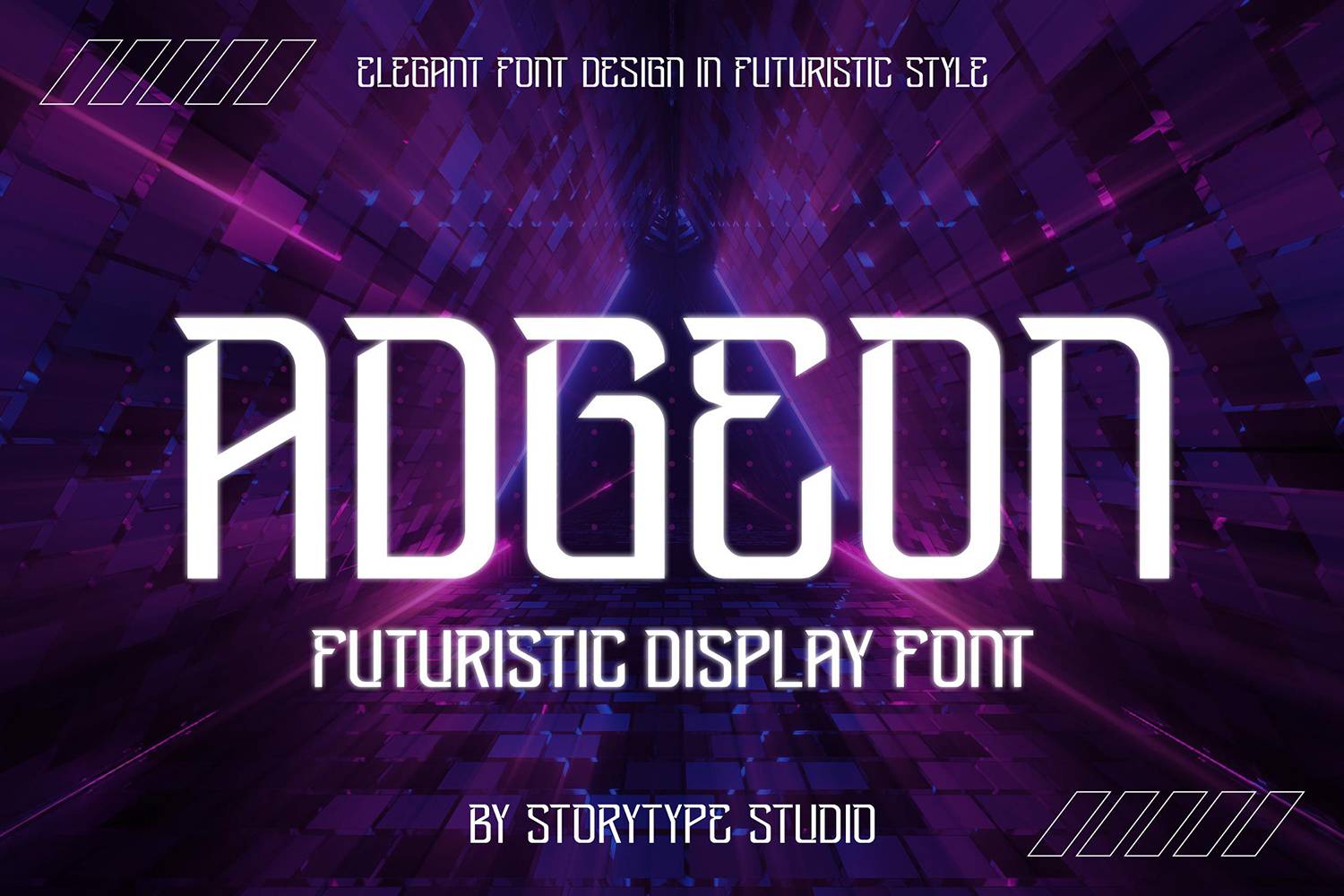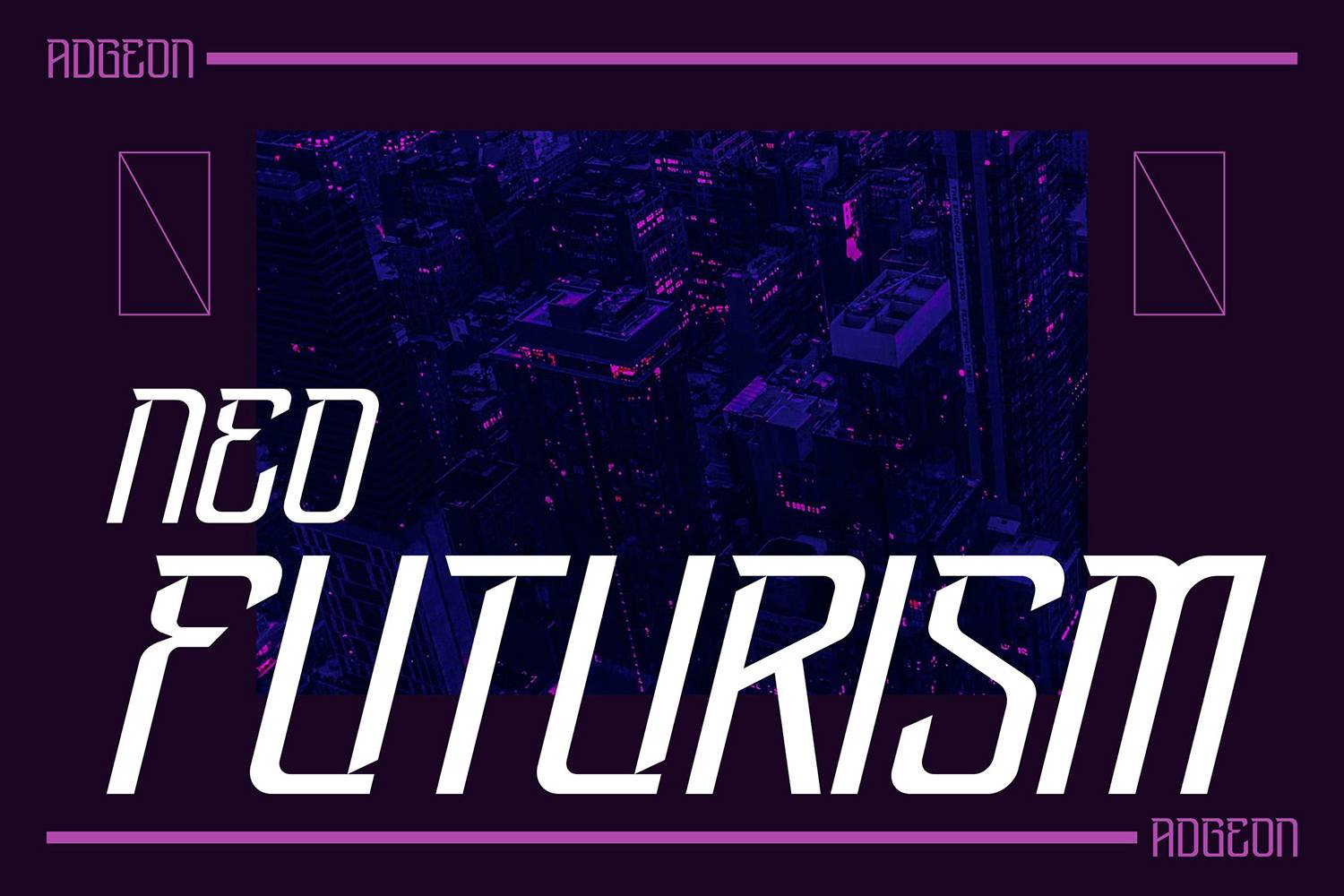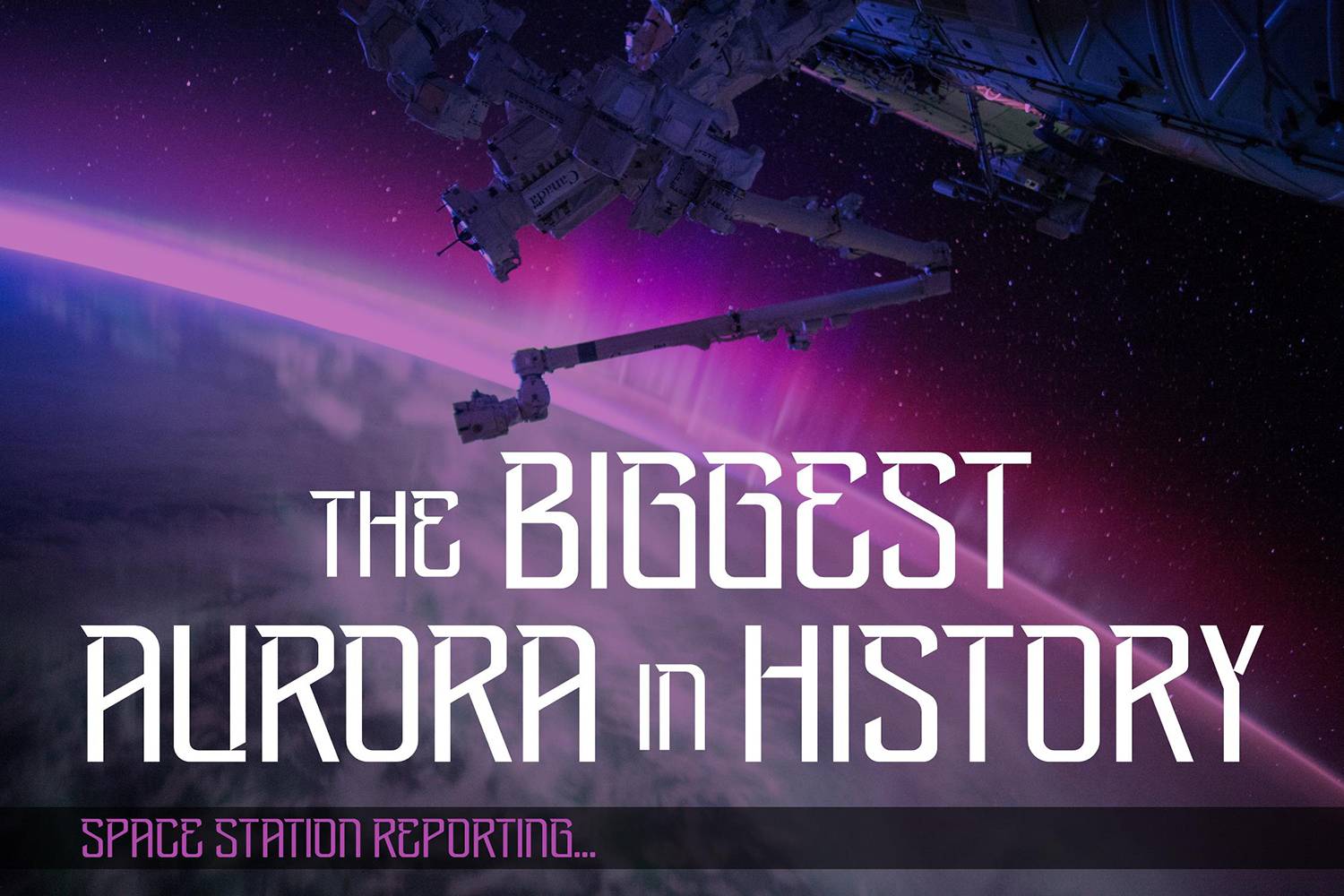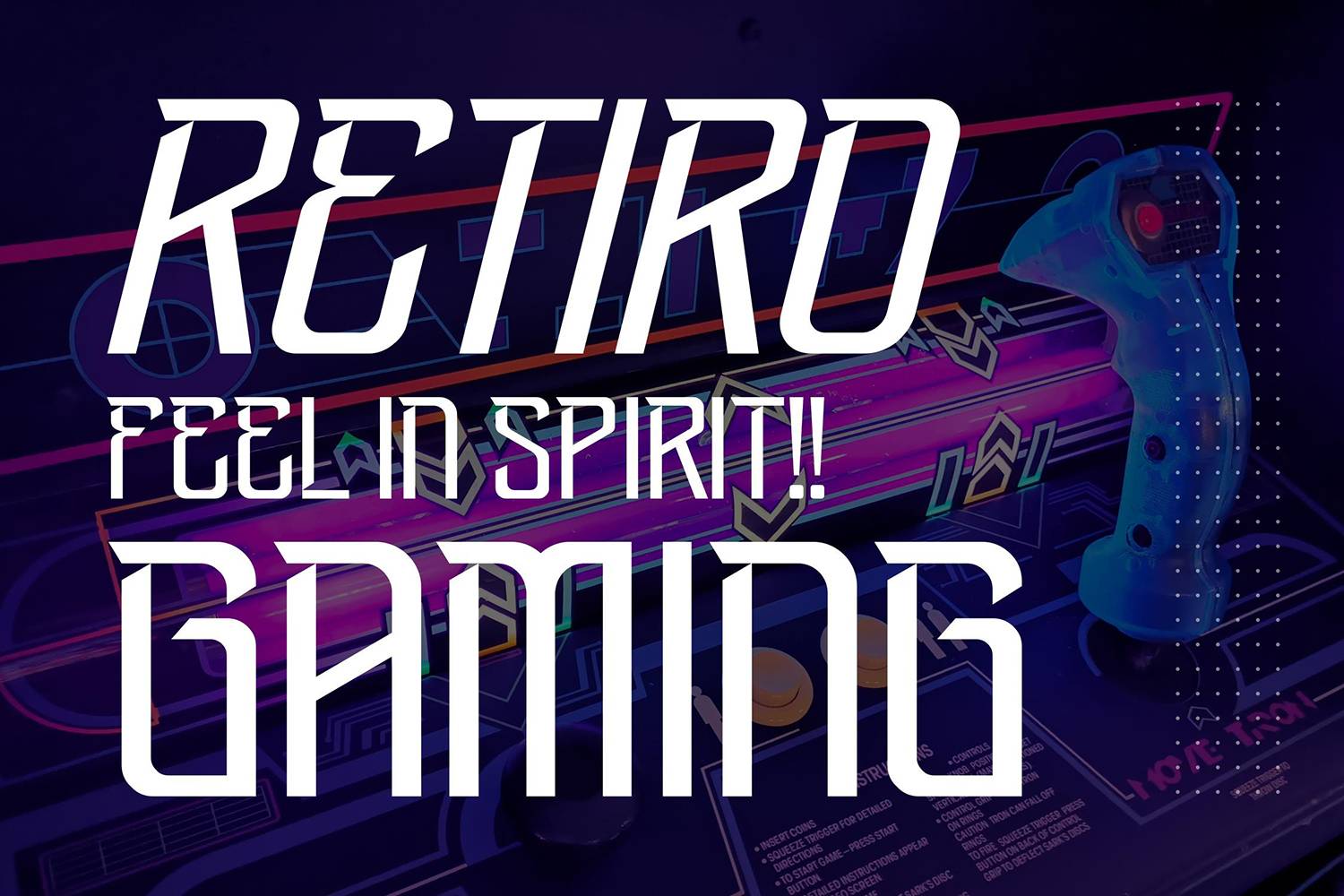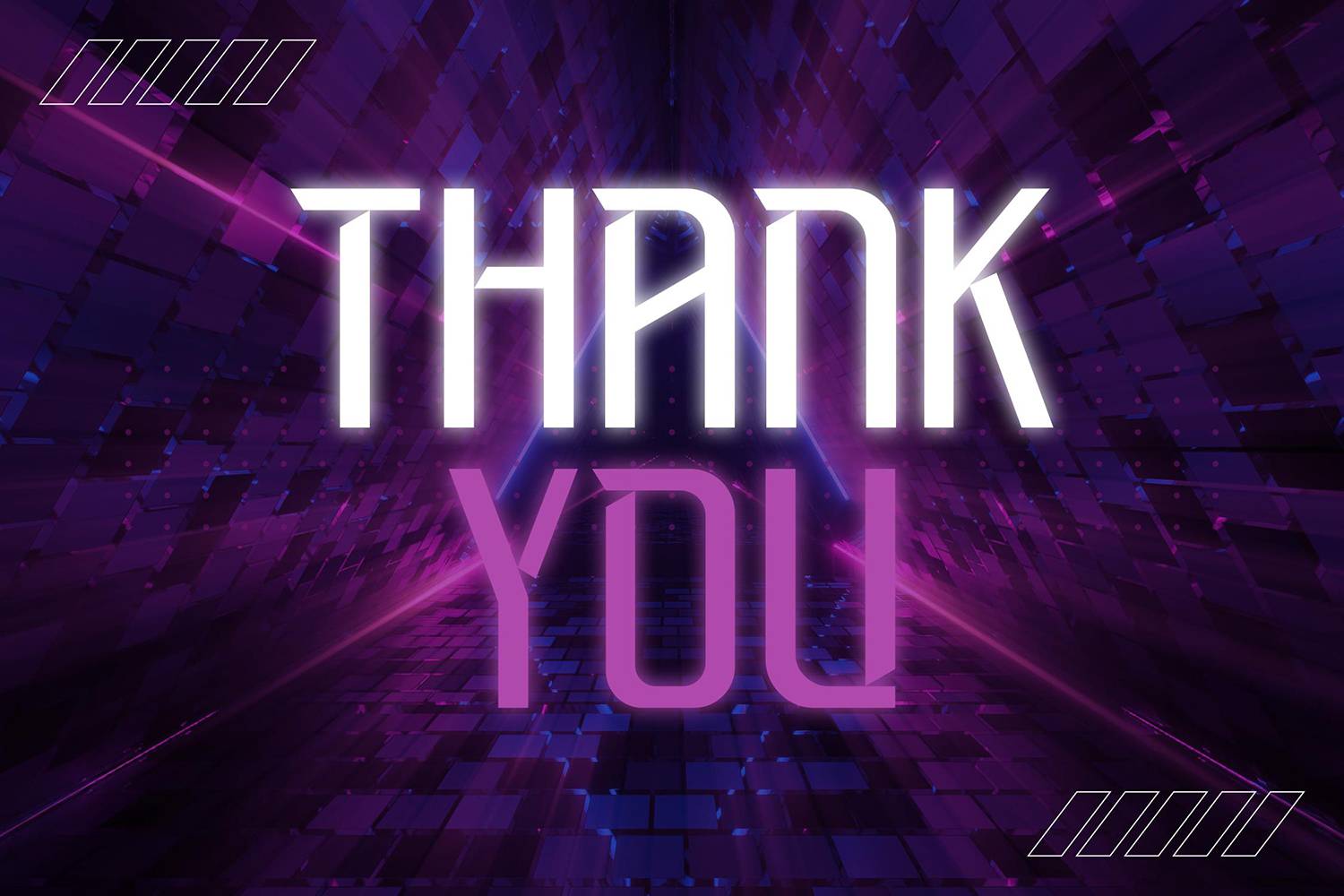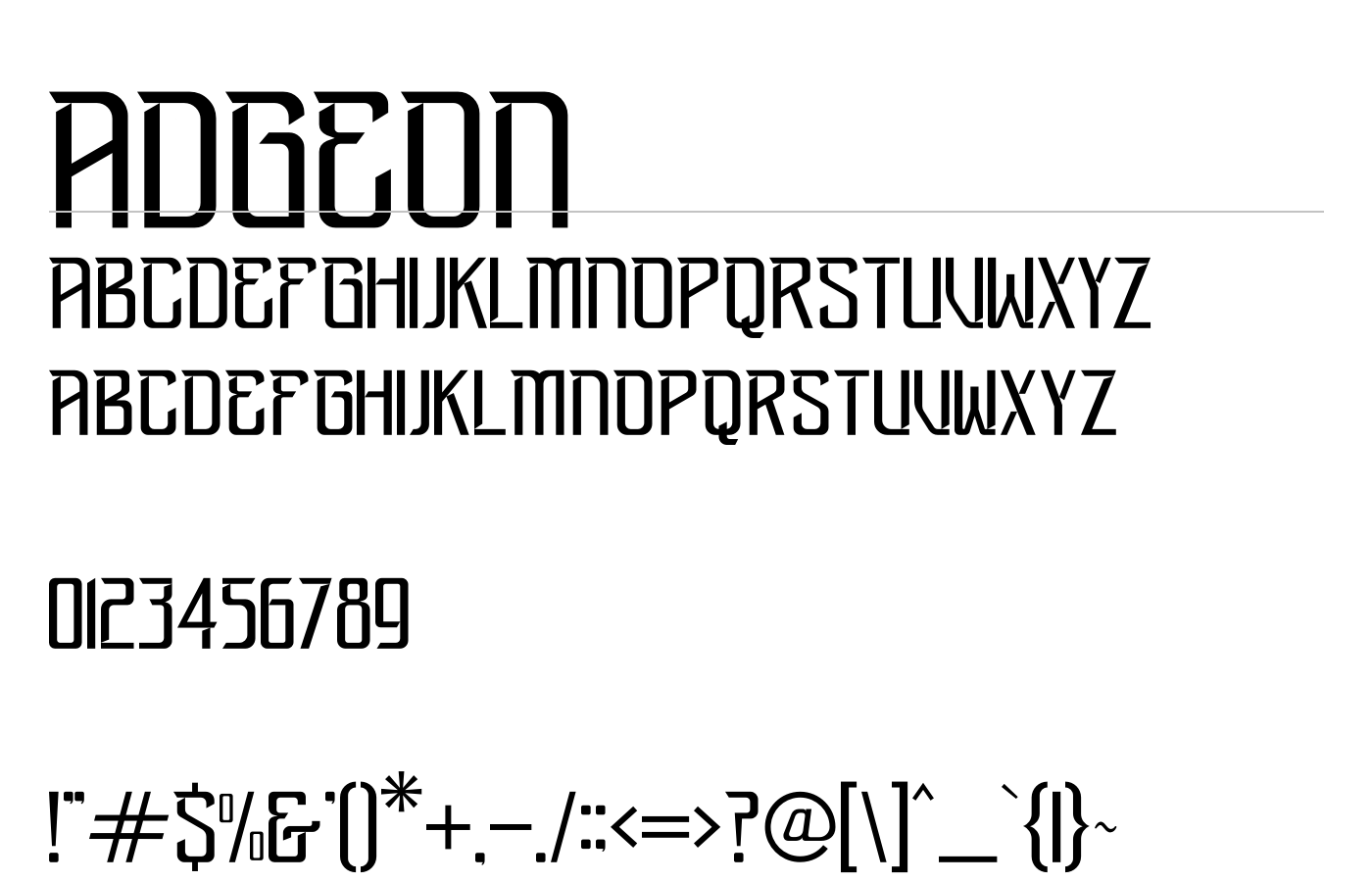
Adgeon is a condensed, all-caps sans serif font with a modern, geometric feel and sharp, angular lines that give it an edgy, futuristic vibe. Its tall x-height and medium contrast strokes make it striking for headlines and display uses, while unique letter details add personality without sacrificing clarity. This font is perfect for technology branding, posters, or editorial design where a bold, contemporary statement is desired.
Adgeon Font
About Adgeon Font